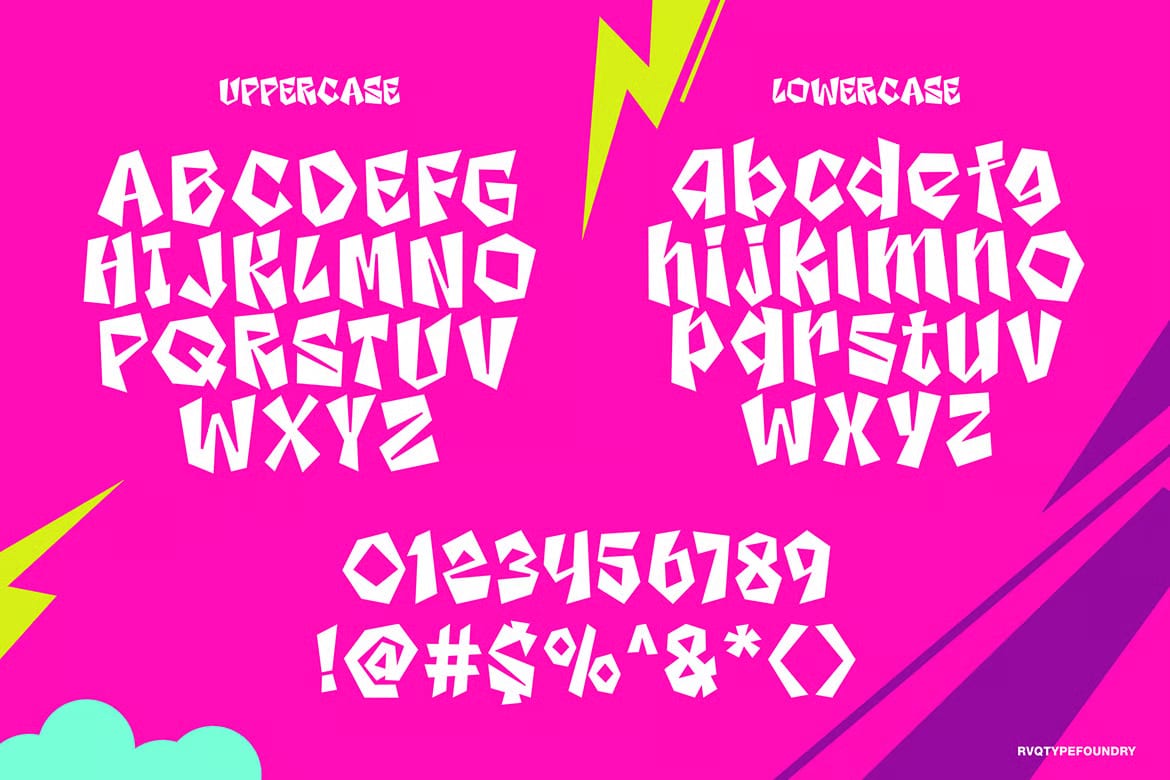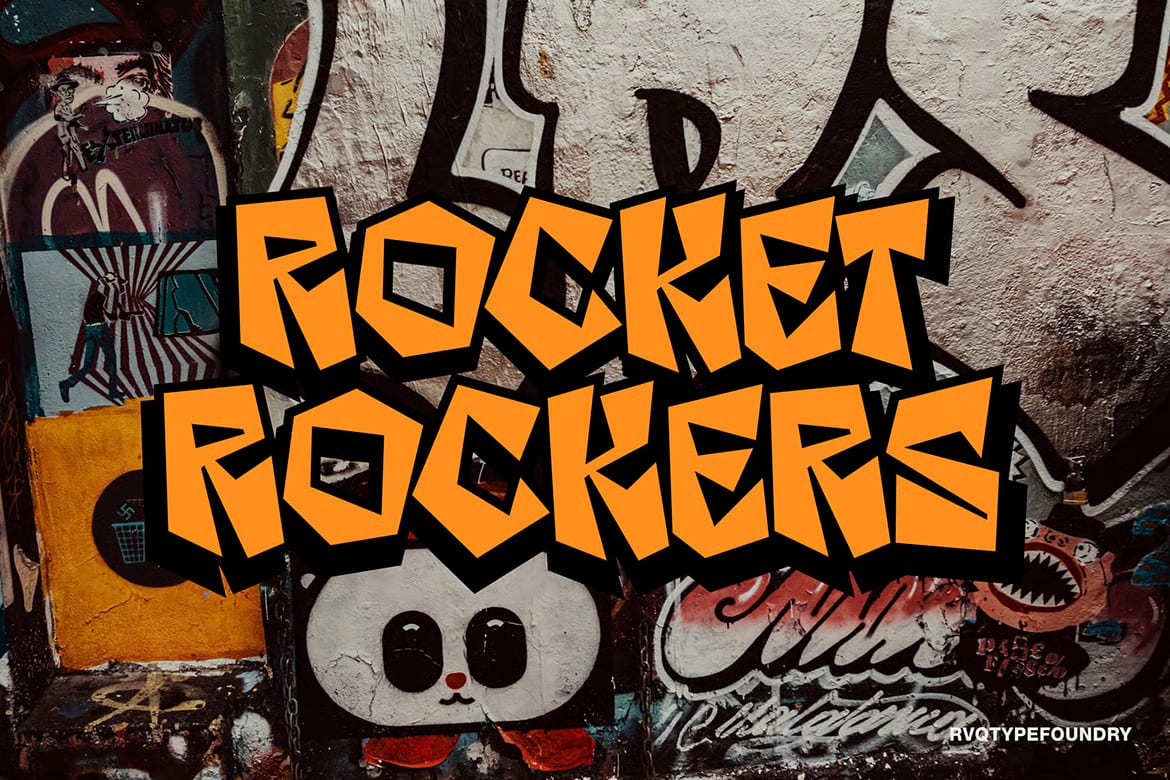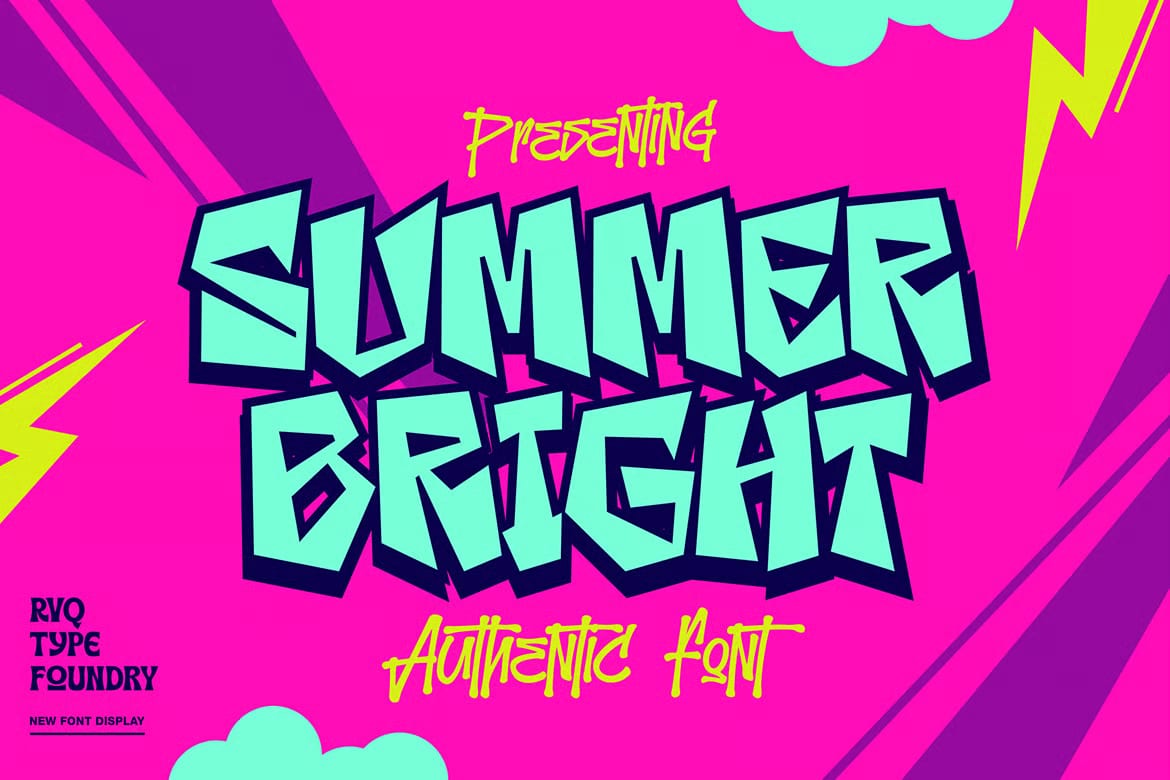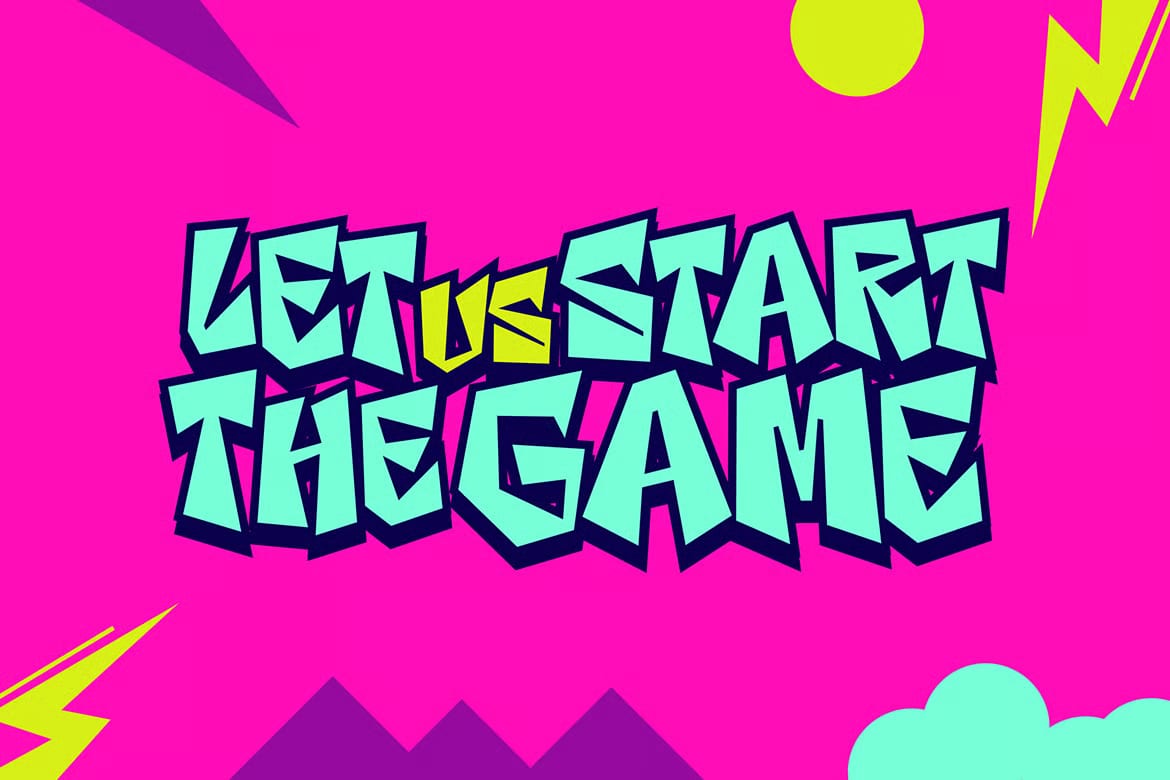
The Summer Bright is a graffiti-style display font with a cool, trendy look. It has an urban feel that works well when you want text to stand out and add a bit of attitude to a design.
This font fits a wide range of creative projects, especially anything that needs a bold poster-style presence. It can work nicely for festival graphics, music promos, fashion designs, clothing artwork, and social media posts that need a stronger visual accent.
Because it is made for large display use, it is a good choice for headlines, titles, and other short text that needs to grab attention. The style is simple to use and gives designs a fresh, street-inspired look without feeling too heavy or complicated.